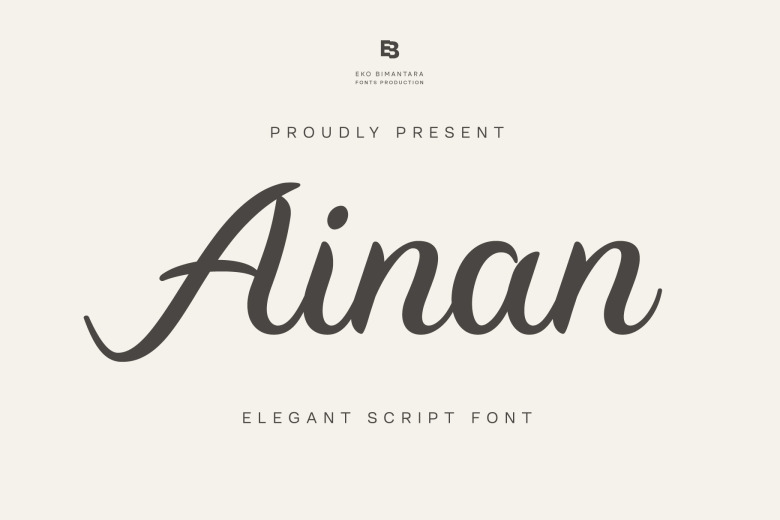
Ainan Font
Eko Bimantara designed and released Ainan 2022. With natural lines and proportionate letters, this typeface is polished. Use it for digital or print design and other creative projects Iike branding, logos, headers, and titles.
Ainan Retro Script Font